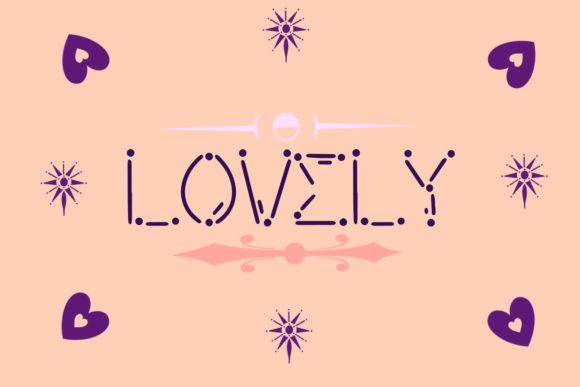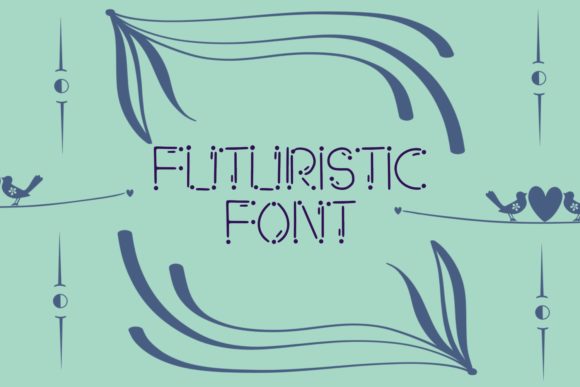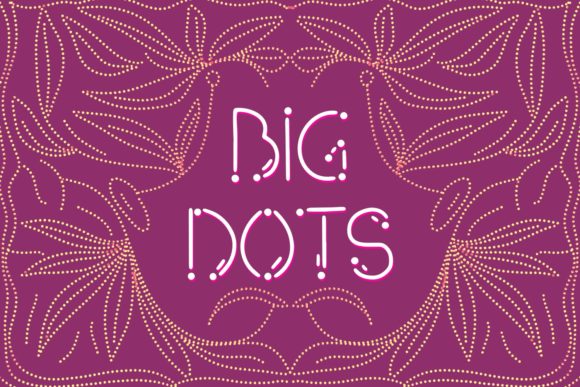
The Big Dots Font: A Playful and Modern Display Powerhouse
I’ll never forget the time I was working on a branding project for a trendy new cafe. I had the logo concept nailed, but I just couldn’t find the right font to match. That was until I stumbled upon the Big Dots font. It was like a breath of fresh air – playful, modern, and futuristic. I knew right then and there that it was the perfect fit. In this article, I’ll share my love for Big Dots, its features, and how to make the most of it in your designs.
- ✨ Its unique, dot-based design makes it stand out from more traditional fonts.
- ✅ It’s incredibly versatile and can be used for a wide range of projects, from branding and advertising to packaging and web design.
- 💥 The font comes with a range of OpenType features, including stylistic alternates and glyphs, which allow for endless creative possibilities.
While Big Dots is an amazing font, it’s not without its quirks. For example:
- 🤔 It can be a bit tricky to read at smaller sizes, so it’s best used for headlines or titles.
- ⚠️ Some of the more intricate details can get lost when used on smaller devices or screens.
The Designer Inspiration Behind Big Dots
The story goes that Big Dots was created by a young designer who was inspired by the futuristic cityscapes of sci-fi movies. She wanted to create a font that captured the essence of modernity and innovation, while also being playful and fun. And so, Big Dots was born.
Q: What type of projects is Big Dots best suited for?
A: Big Dots is incredibly versatile and can be used for a wide range of projects, from branding and advertising to packaging and web design.
Q: Is Big Dots easy to read?
A: Big Dots can be a bit tricky to read at smaller sizes, so it’s best used for headlines or titles. However, at larger sizes, it’s incredibly clear and easy to read.
Q: Can I use Big Dots on mobile devices?
A: Yes, Big Dots can be used on mobile devices. However, some of the more intricate details may get lost on smaller screens.